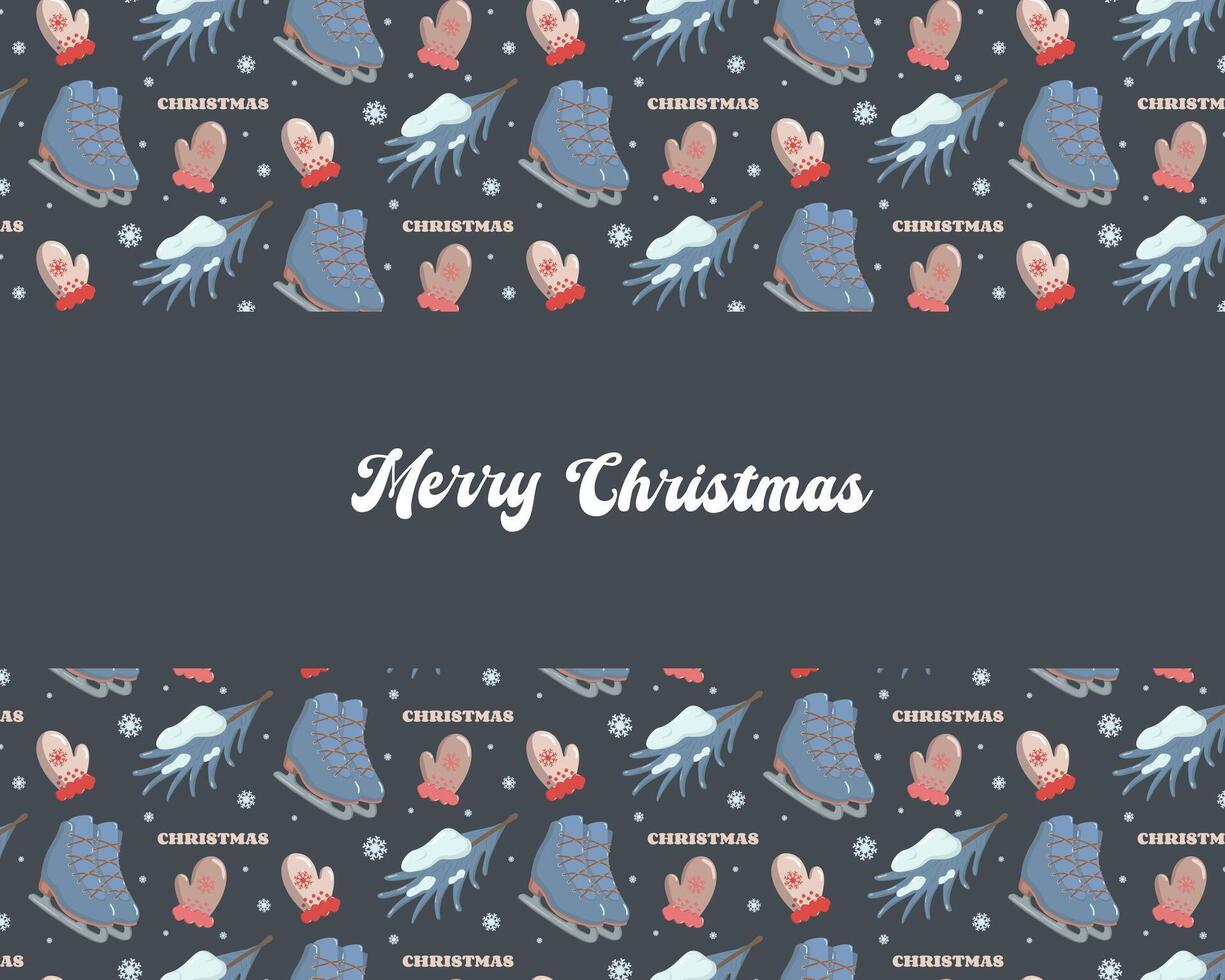
Christmas pattern with ice skates, mittens, snowflakes, and pine branches on dark background. Includes Merry Christmas text in cursive font and repeated CHRISTMAS lettering. Perfect for seasonal decor Pro Vector